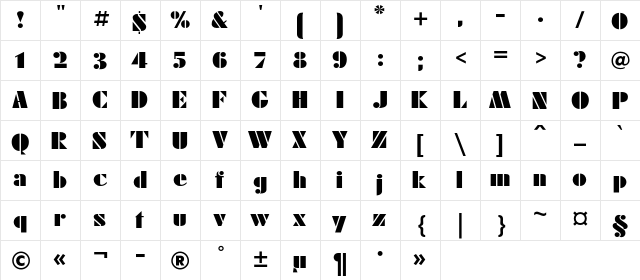
FuturaEugeniaC Regular
Design Context for FuturaEugeniaC Typeface
FuturaEugeniaC has a distinctly futuristic character, with geometric precision and clean angles that feel at home in technology, gaming, and sci-fi contexts.